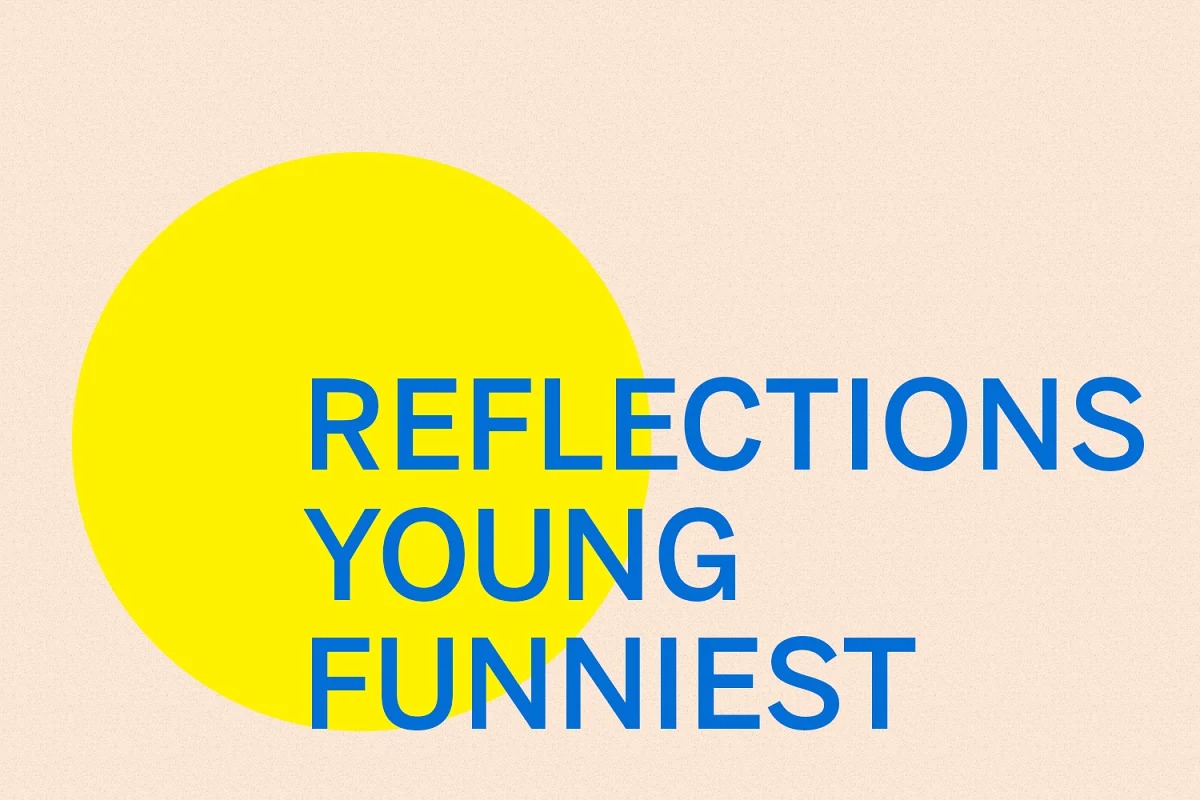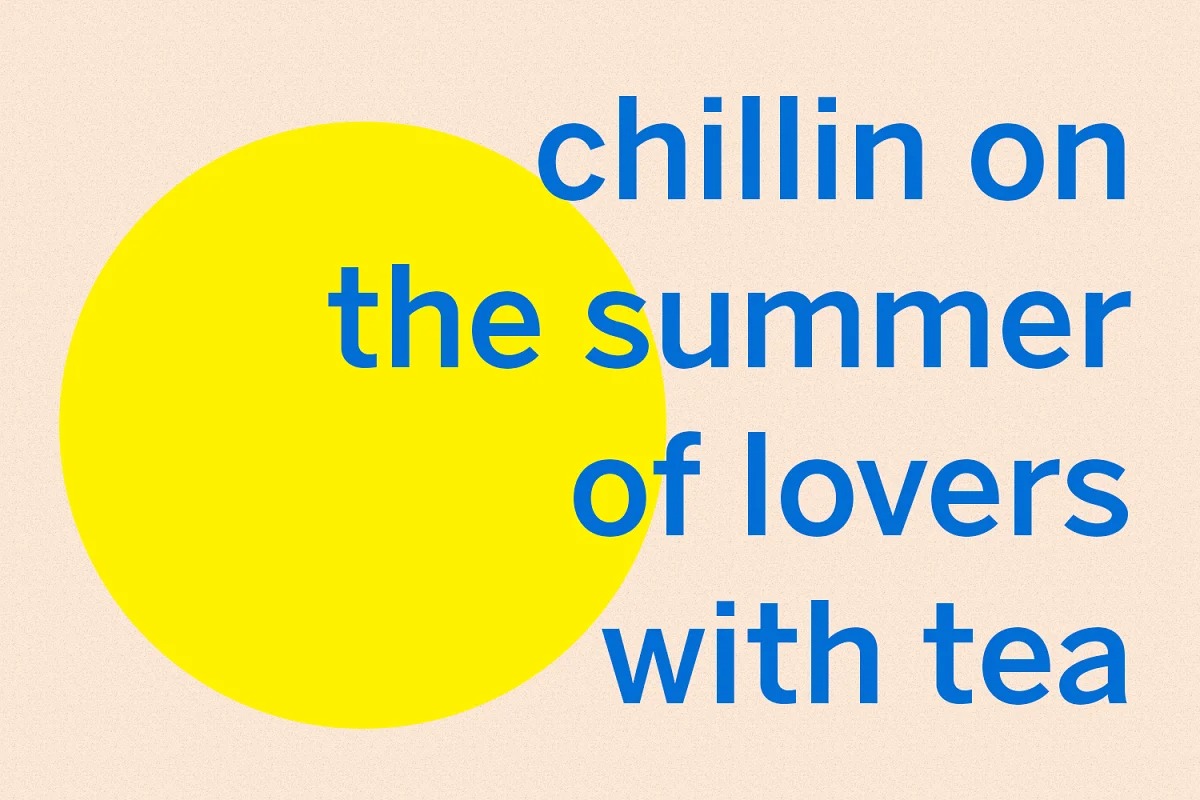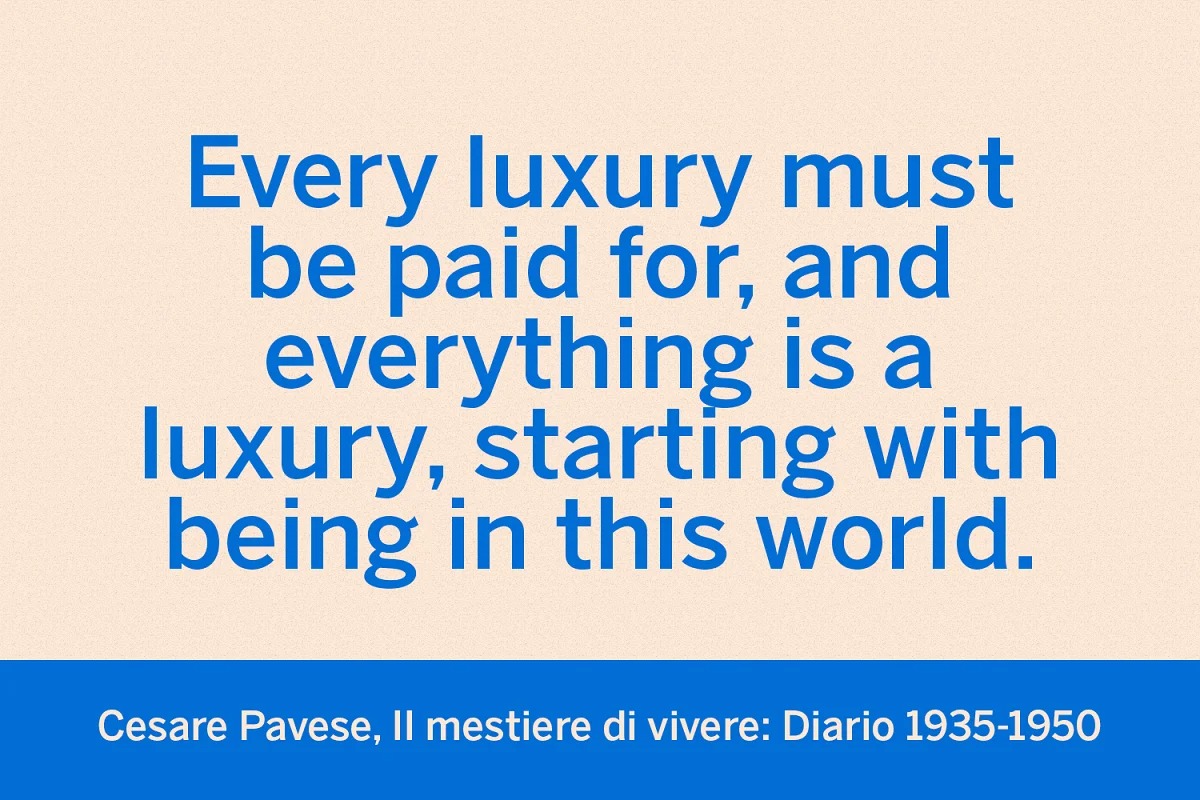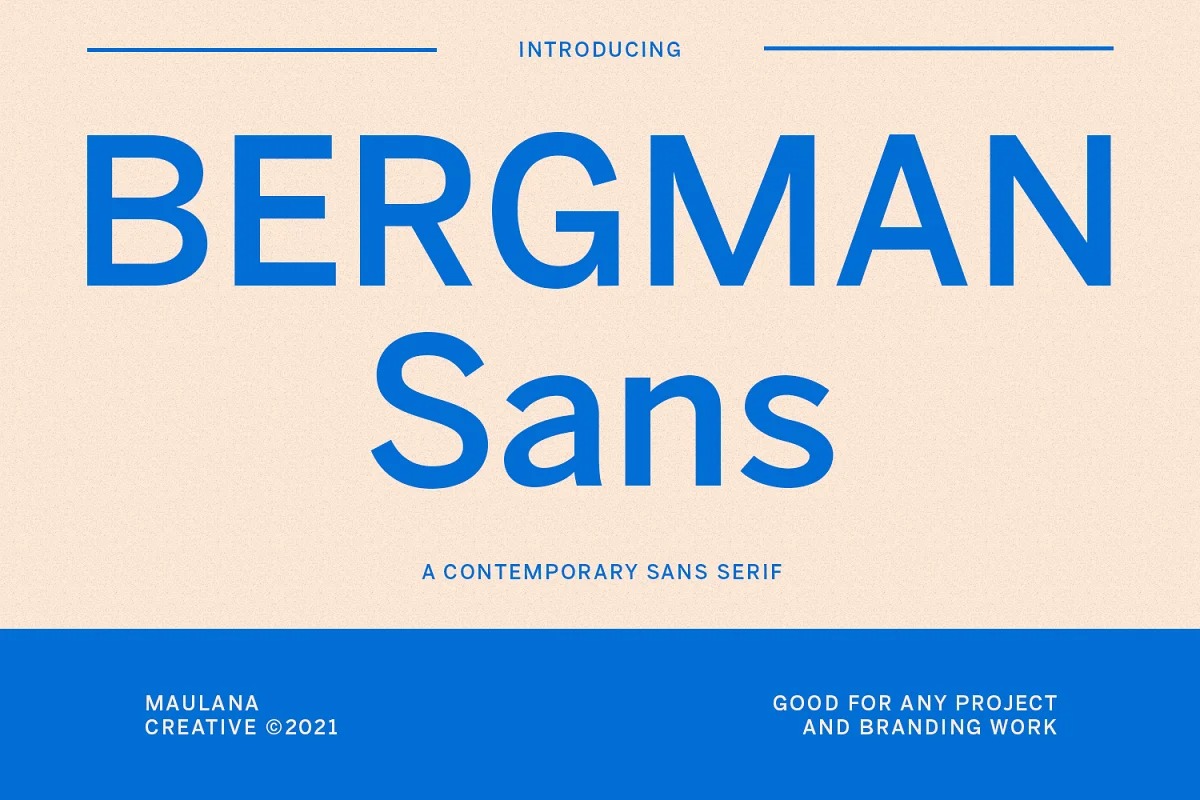
Bergman Sans Font
Bergman Sans Font is a bold and fierce display font crafted & designed by Maulana Creative. It can be used for a variety of ideas, both formal and casual. Bergman Sans font support multilingual more than 100+ language. This font is good for logo design, Social media, Movie Titles, Books Titles, a short text even a long text letter and good for your secondary text font with script. Make a stunning work with Bergman Sans font.